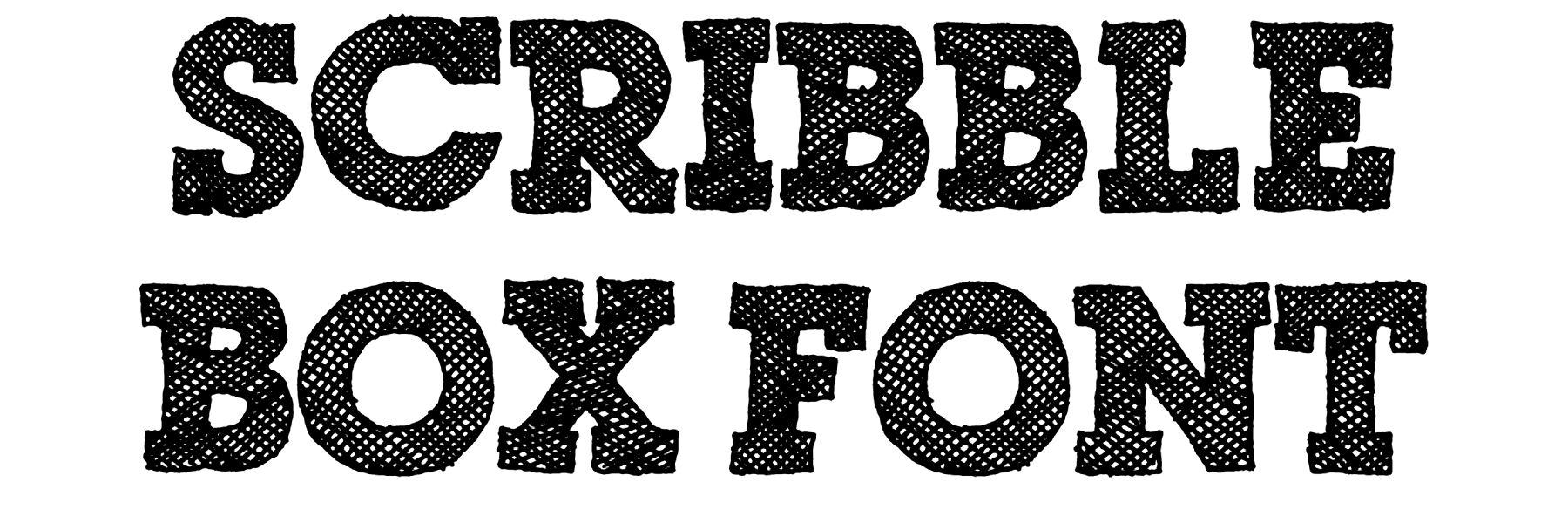
Scribble Box is a bold, sketched block display typeface designed by typographer Kevin Christopher of KC Fonts. Released in 2011, it cleverly merges rigid, architectural 3D block geometry with a chaotic, hand-drawn pencil texture.
Scribble Box
Scribble Box is a fancy font created by Kevin Christopher (2011).
- Designer: Kevin Christopher